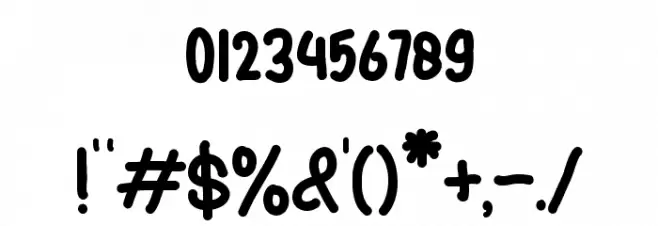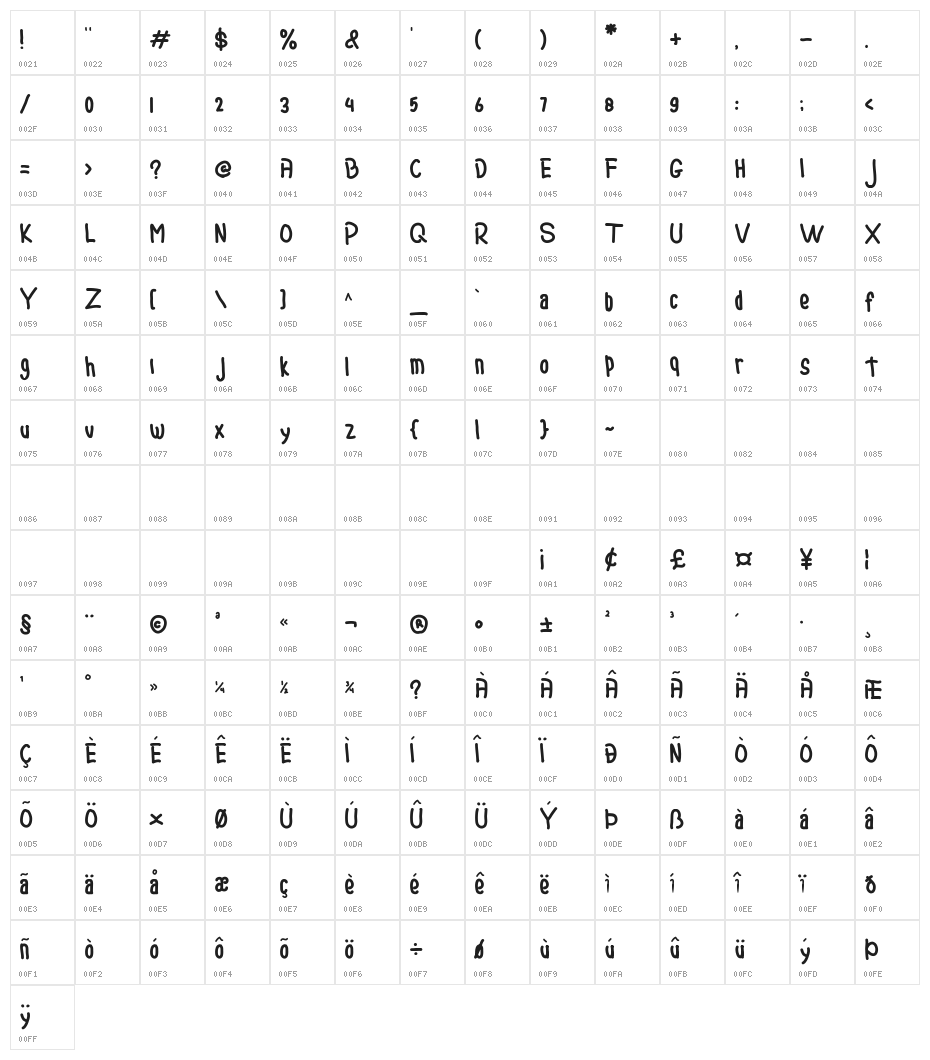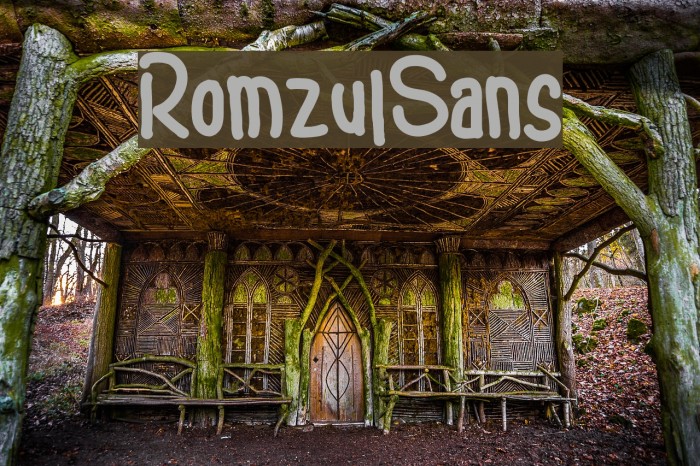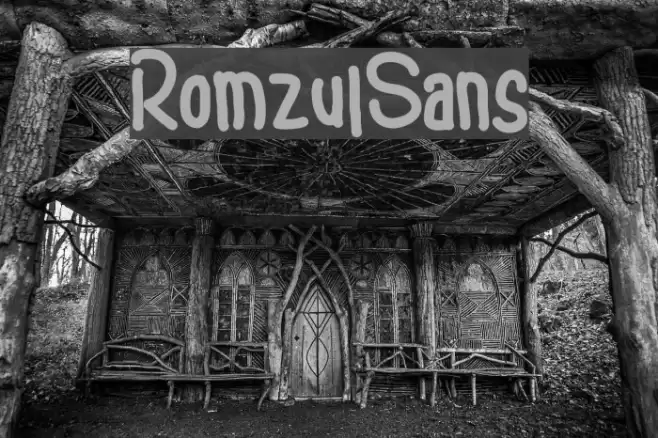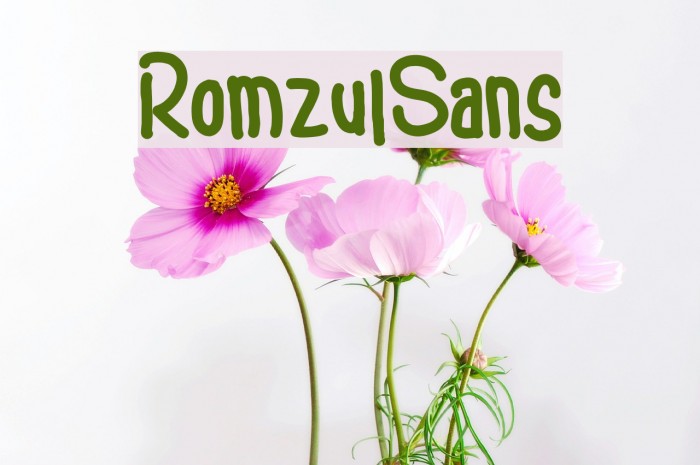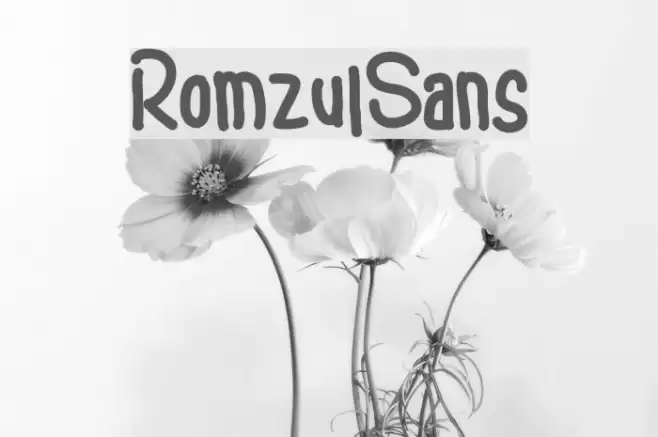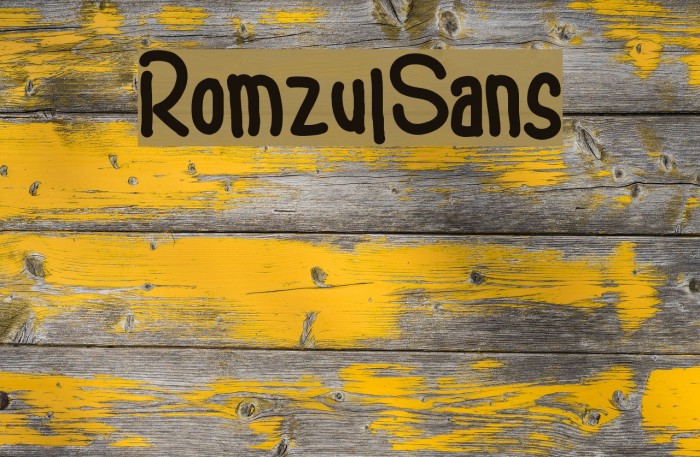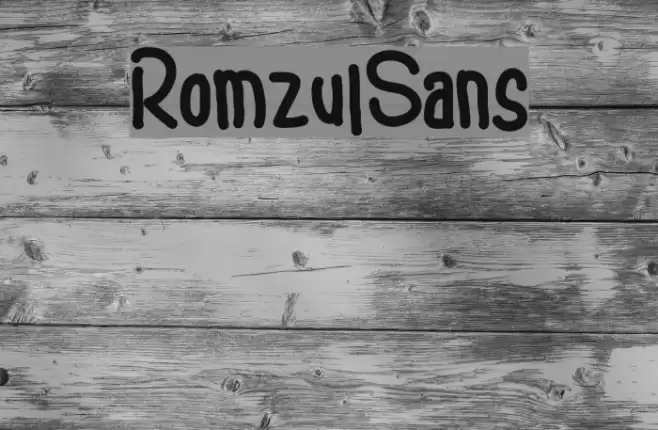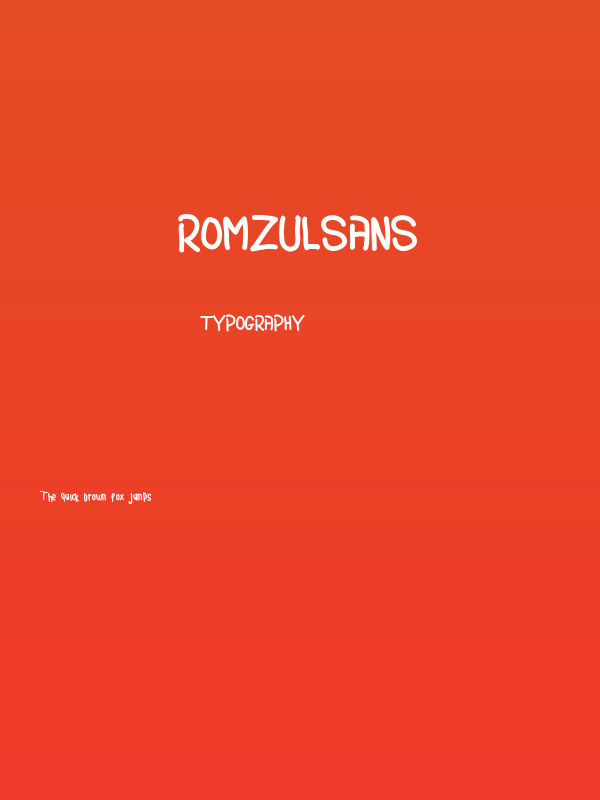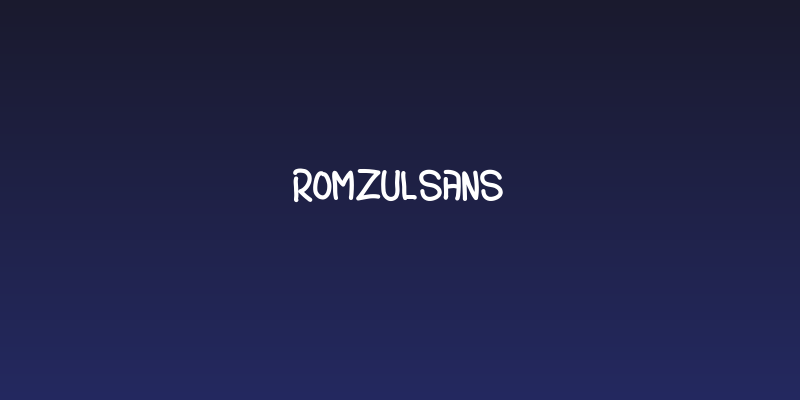
RomzulSans Font
RomzulSans Description
This font exhibits a playful and informal style, characterized by its rounded, slightly irregular letterforms that convey a sense of whimsy and friendliness. The uppercase and lowercase letters maintain a consistent flow, with a hand-drawn appearance that adds a personal touch. The numerals and special characters are crafted to match the overall aesthetic, ensuring a cohesive look across all text. This font's unique style makes it suitable for projects that aim to evoke creativity and approachability.
| Use Case | Headlines, Logos, Informal text |
| Proposed Projects | Ideal for children's books, creative branding, casual invitations, and playful social media graphics. |